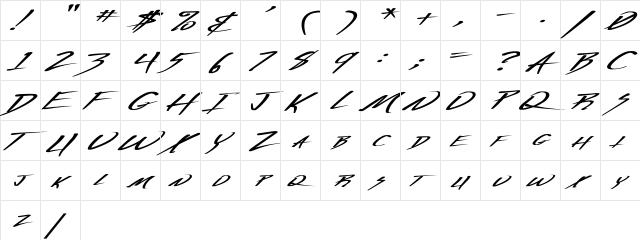
Vecker Ex Bold Italic Regular
Design Context for Vecker Ex Bold Italic Typeface
Vecker Ex Bold Italic is a composed and adaptable typeface that performs quietly and consistently across a wide range of design contexts. The dynamic lean of this cut emphasises speed and emphasis in any layout. The heavy weight commands attention and anchors typographic hierarchies.